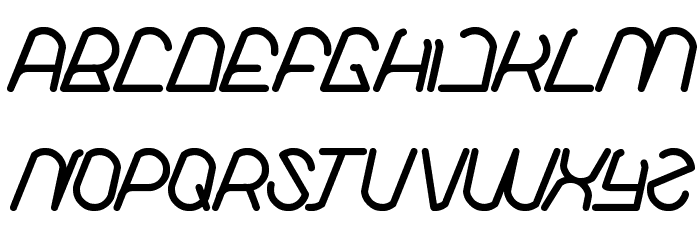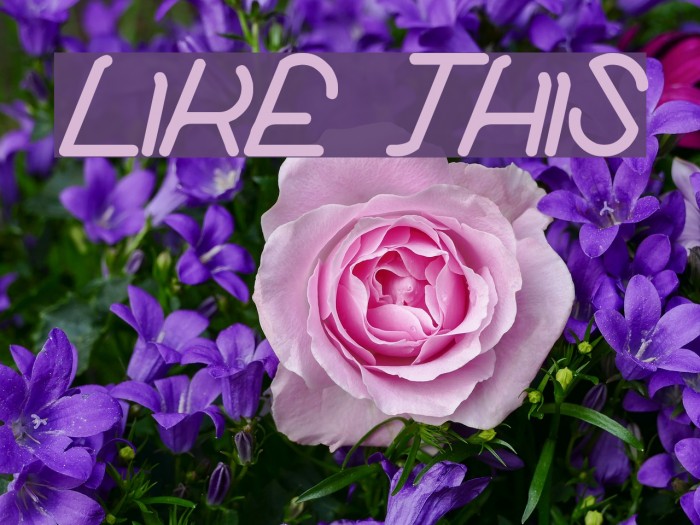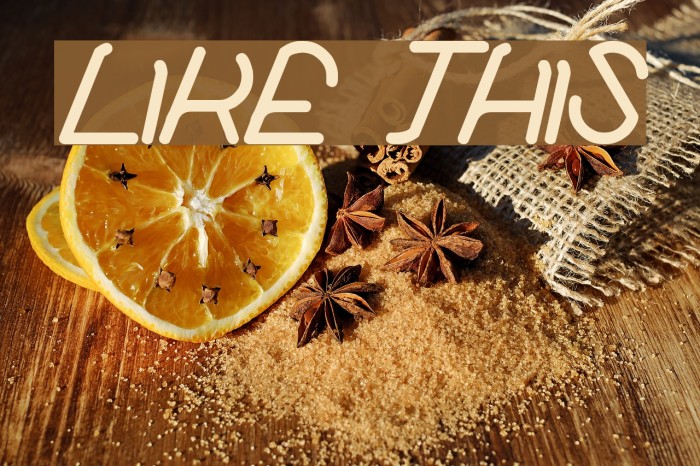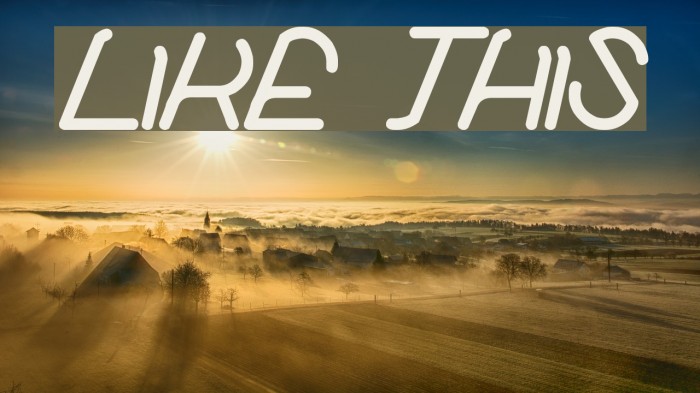
like this Font
This font features a unique, futuristic design with a geometric and angular style. The characters are formed with a continuous, flowing line that gives a sense of motion and modernity. The uppercase letters are distinct with sharp angles and curves, creating a dynamic and eye-catching appearance. The lowercase letters maintain the same style, ensuring consistency throughout the typeface. The numbers and special characters are designed to match the overall aesthetic, making this font suitable for creative and innovative projects.
A futuristic, geometric font with continuous lines and angular shapes.
- Proposed Projects: Ideal for technology branding, sci-fi movie posters, modern art exhibits, and innovative product packaging.